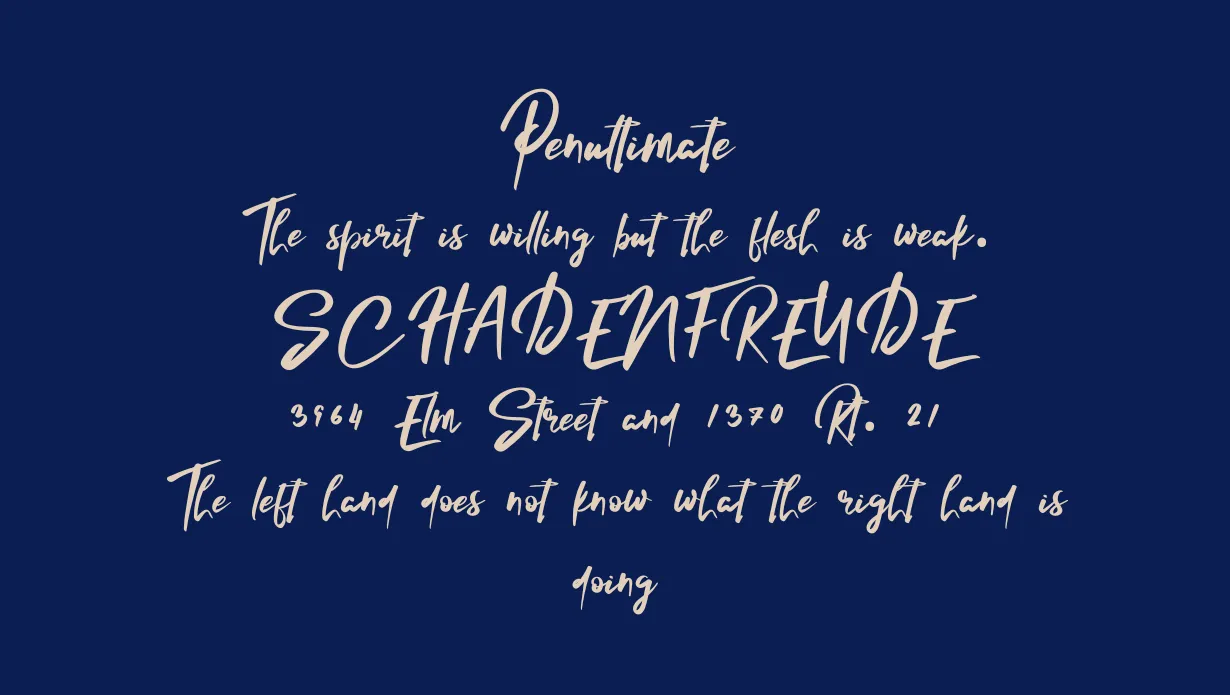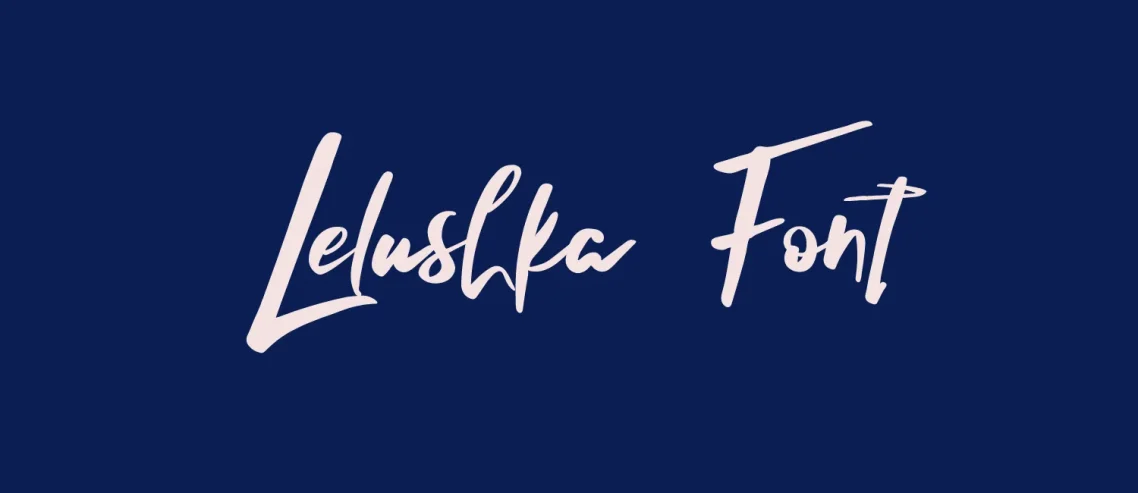
Lelushka Font is a stylish free brush font with a hard design. It has a handwritten-style design on the way to without doubt add an exact appear to your digital and print design.
It looks like ethiopia font will make your design more beautiful. It may also be used as a transparent and legible header.
Style Of Lelushka Font